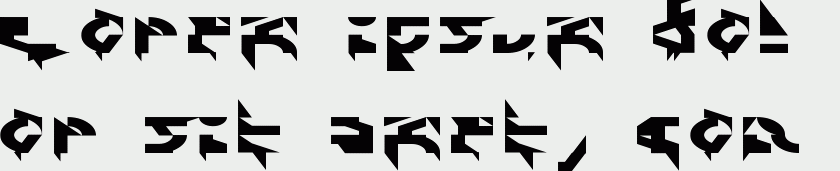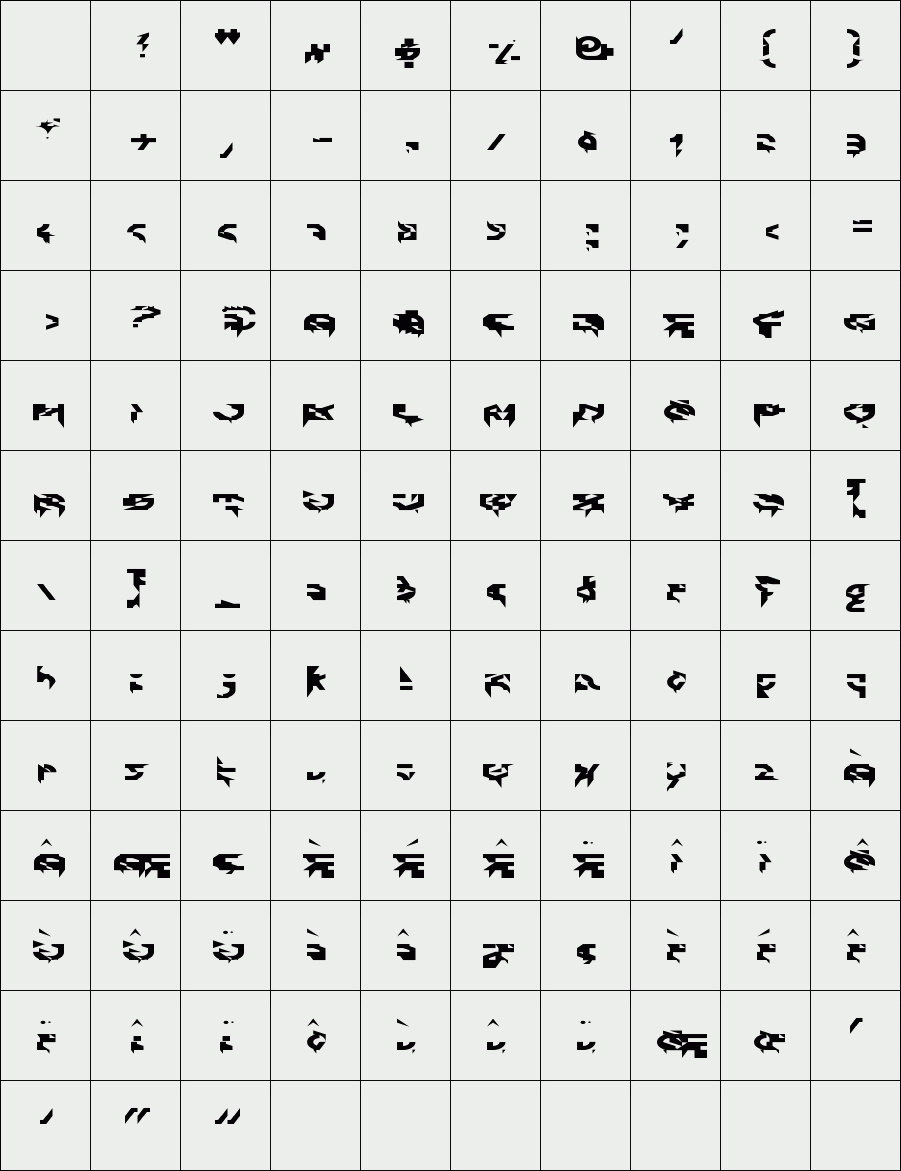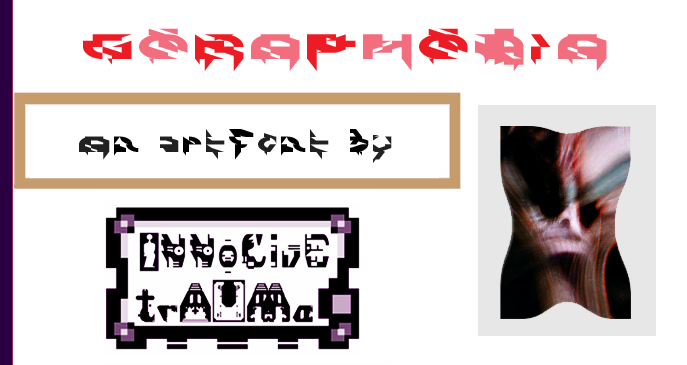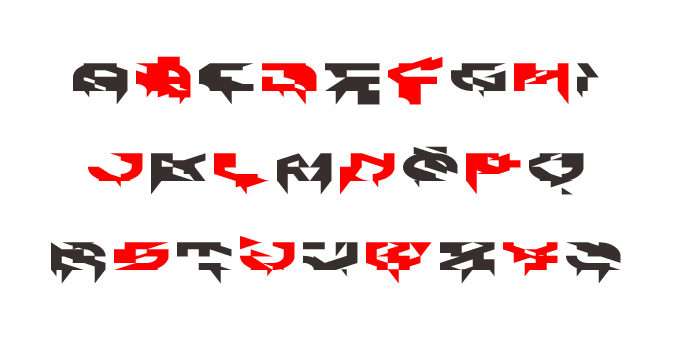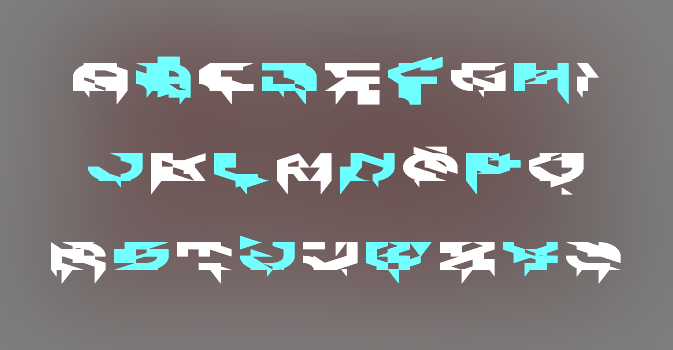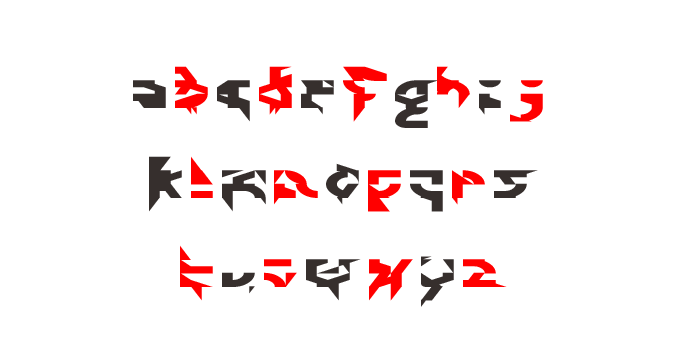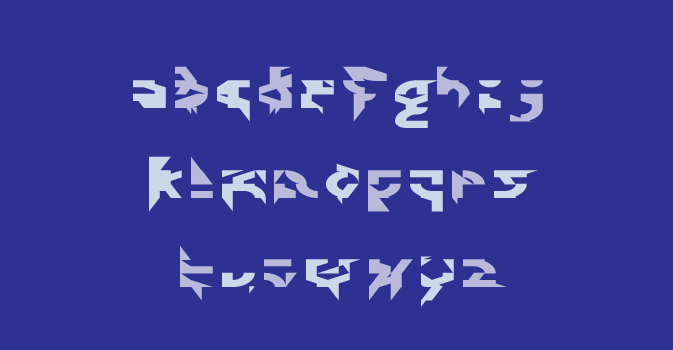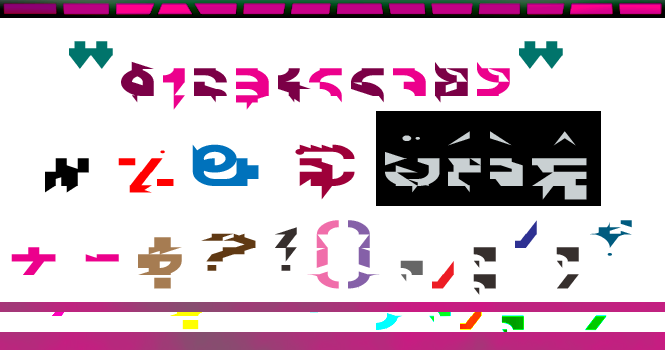
trAUMa 70 / Goraphobia
"Goraphobia", like all the "trAUMa" series, works at the frontier between Art & Type Design, Figuration & Abstraction, each font is a comprehensive world in which every glyph is a "living" entity. But put together they can produce your messages in the most accurate way.